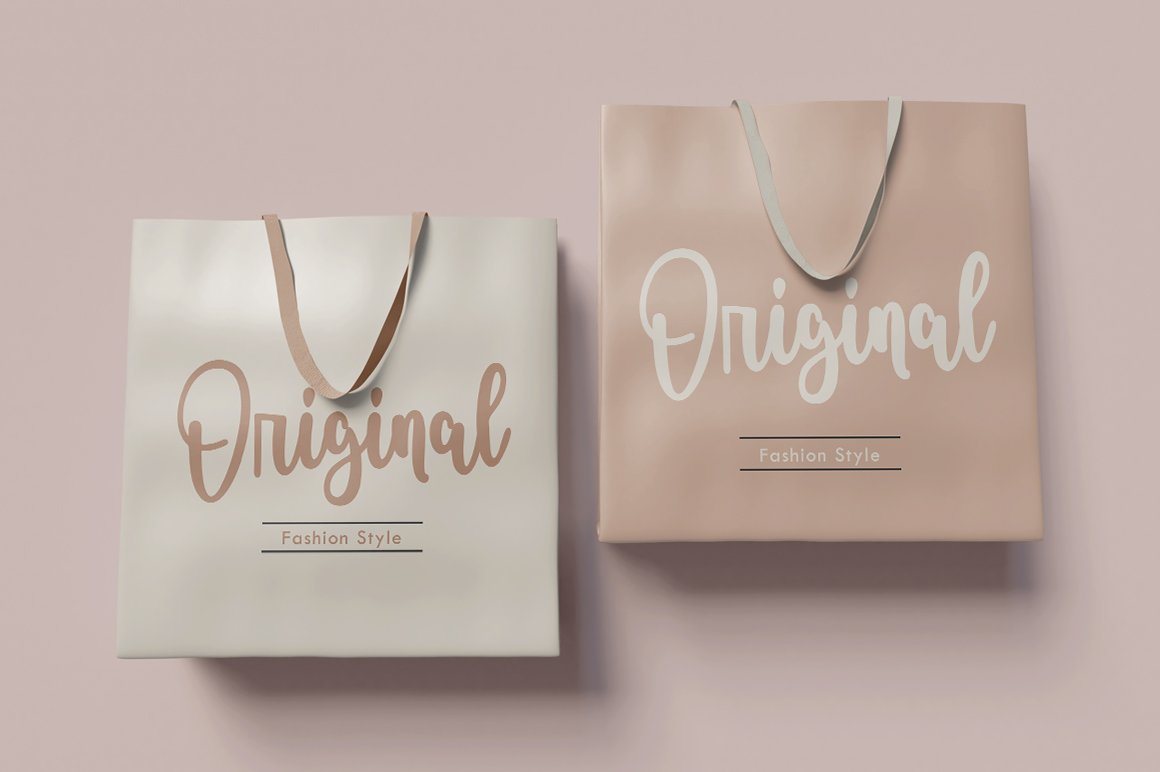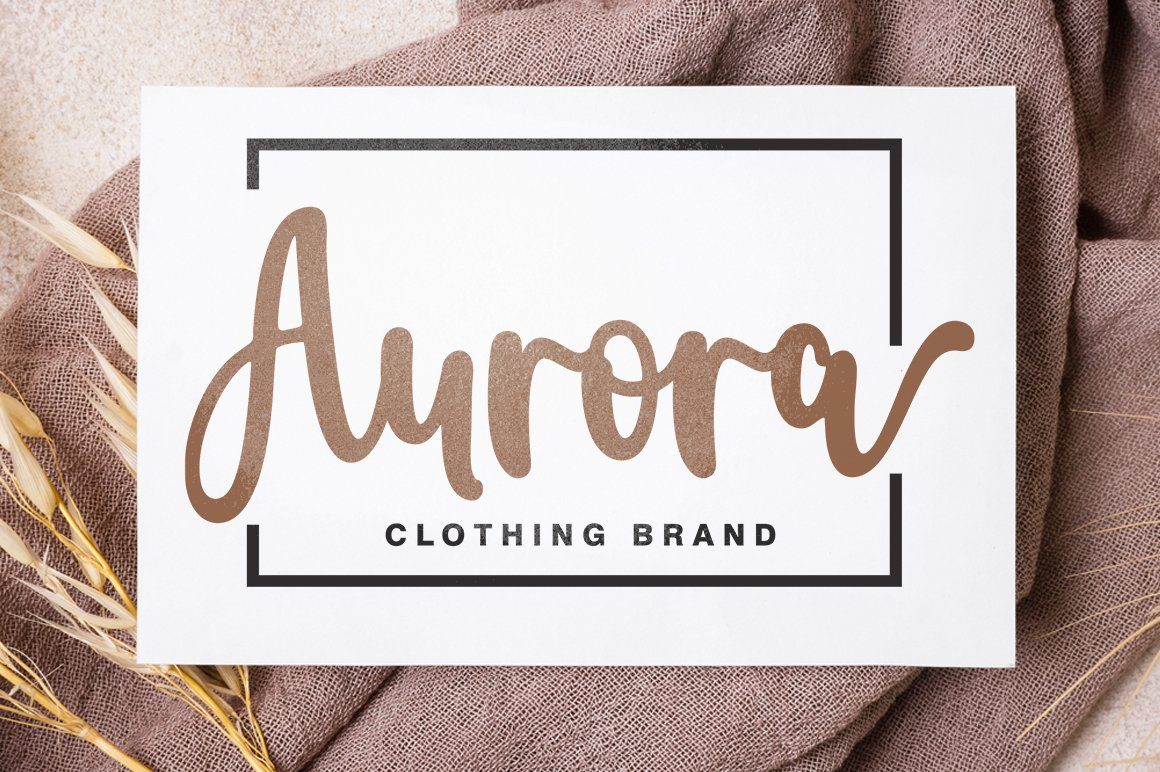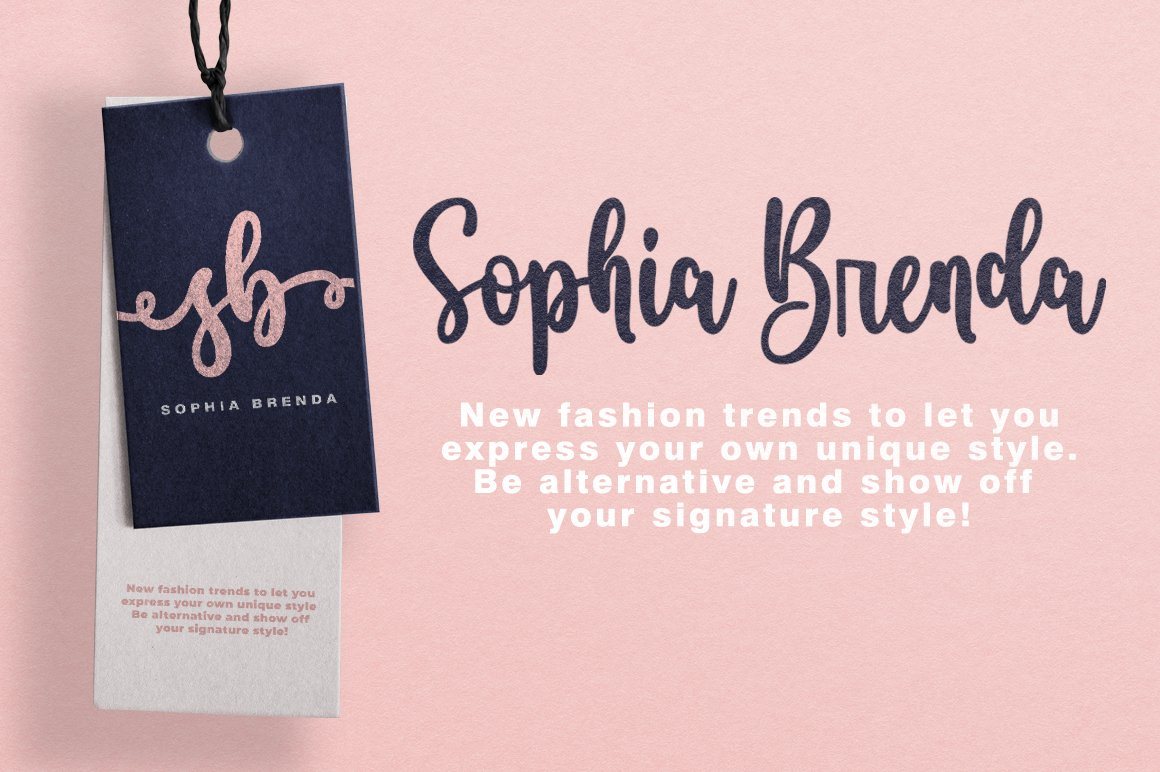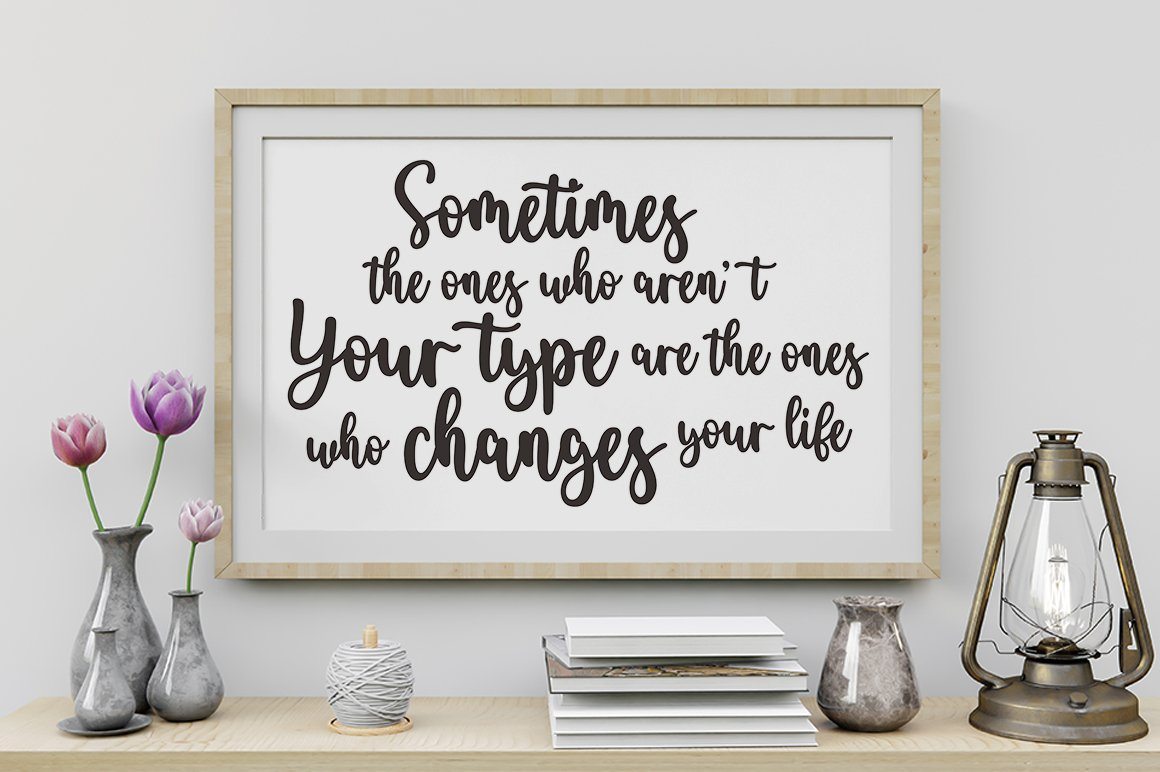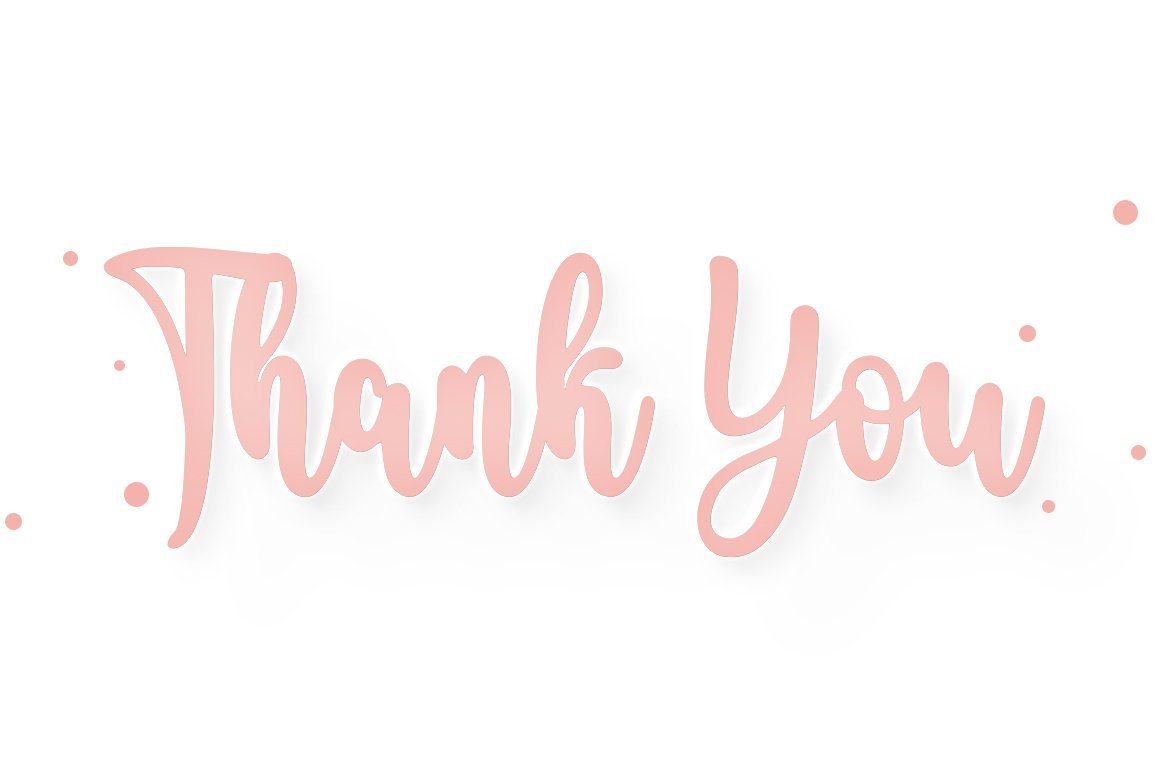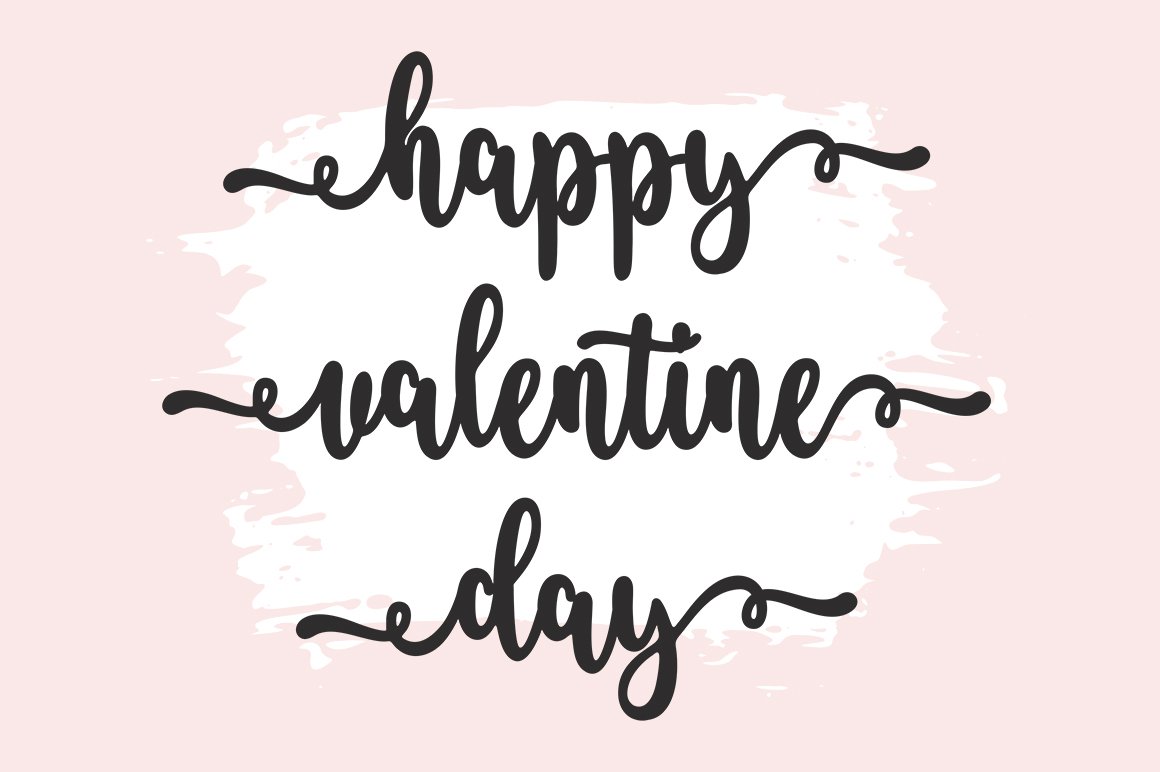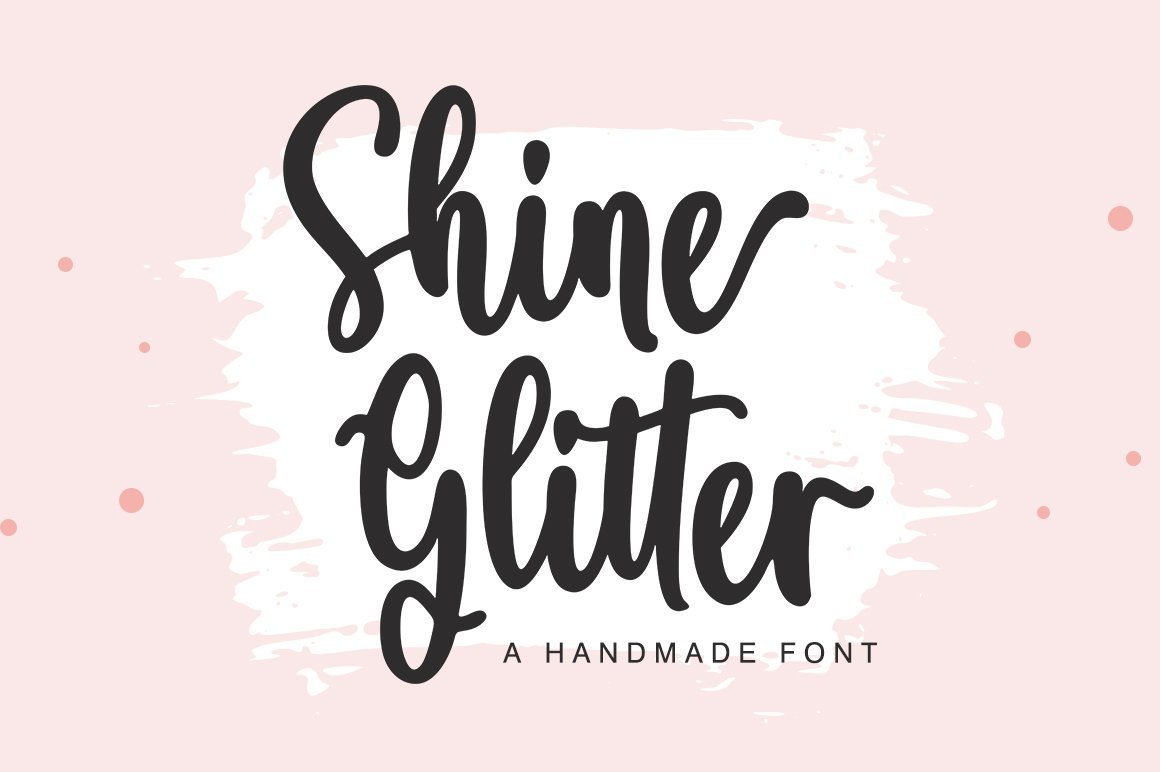
Shine Glitter
Shine Glitter is a handwritten font with a modern calligraphy feel. Shine Glitter is perfect for modern projects, titles, blogs, logos, branding, invitations and more! This purchase includes TTF & OTF files. Accent characters are included at this time. Thank you!